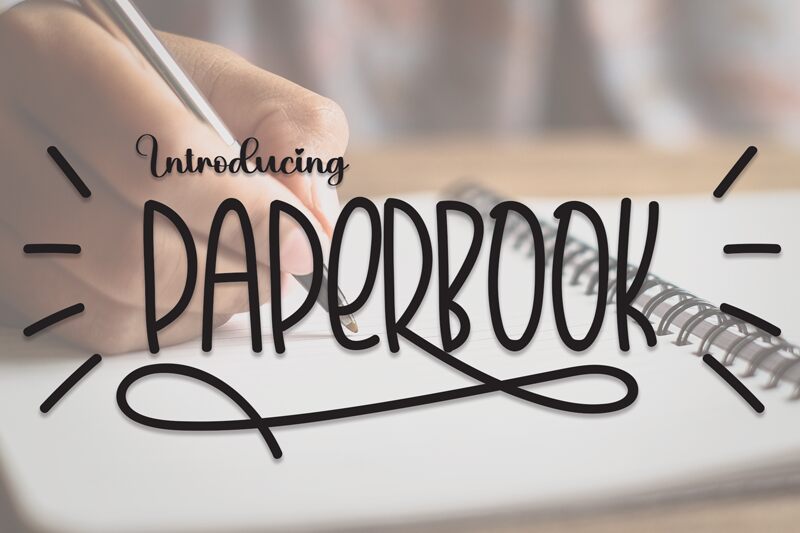
Paperbook
Paperbook by Scratchones is a delightful handwritten, comic font that instantly injects personality and whimsy into any project. Its semi-light weight paired with an extra-condensed width offers a unique blend of playfulness and practicality, making it incredibly versatile for both digital canvases and print. Ideal for designers seeking to add a touch of informality and charm to their work, Paperbook excels in everything from editorial illustrations to branding endeavors.
Crafted with care, this font captures the essence of spontaneous scribbles while maintaining readability. Whether it's bringing life to children's storybooks or creating standout social media graphics, Paperbook ensures your message is not just seen but felt. Embrace the distinctive style of Paperbook and let your creative projects tell stories that are as engaging as they are visually compelling.